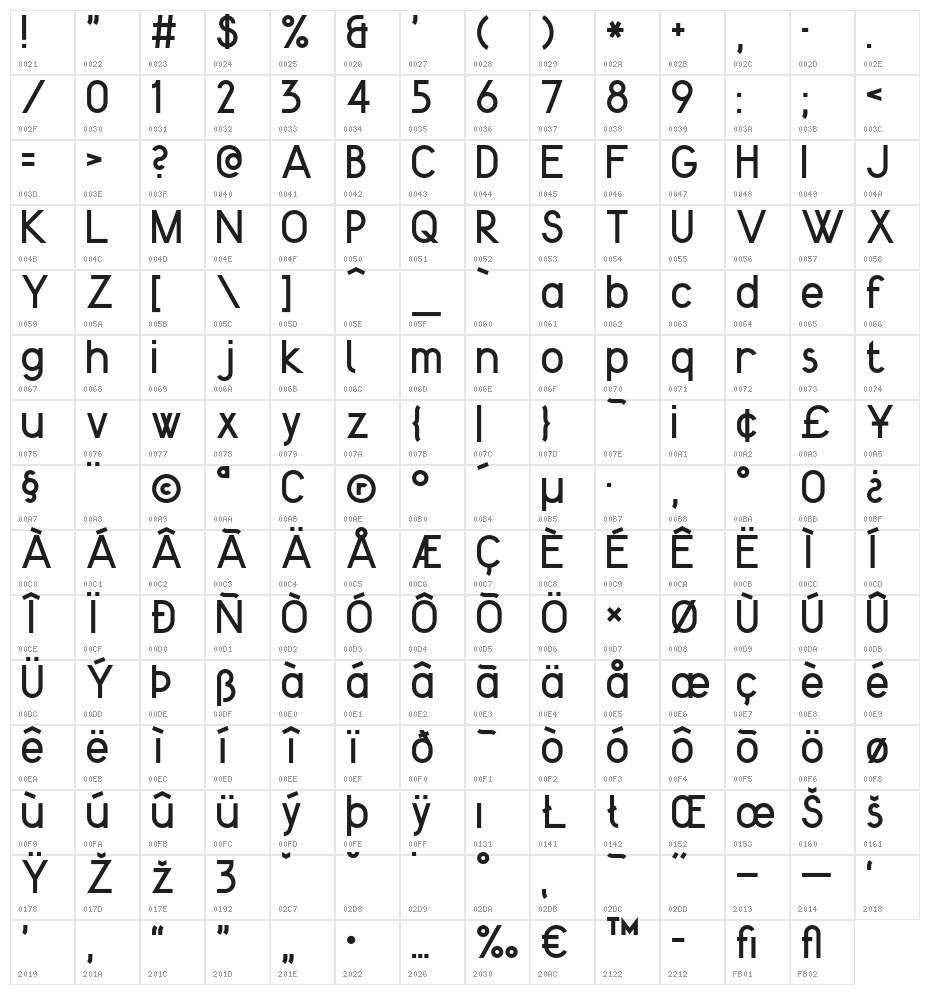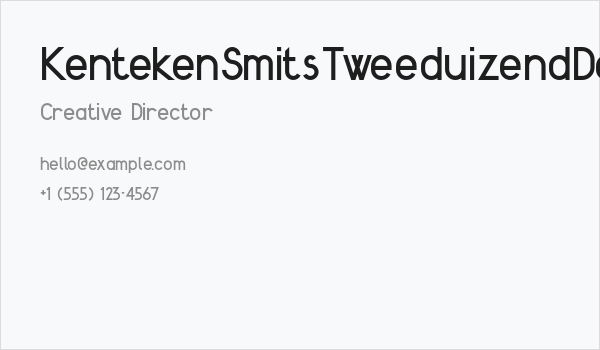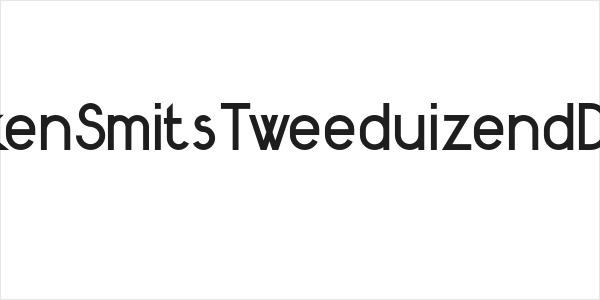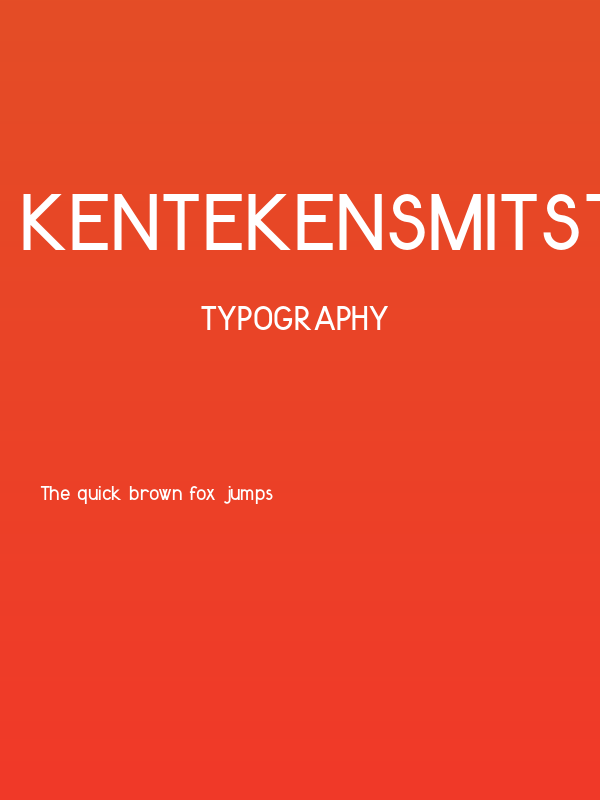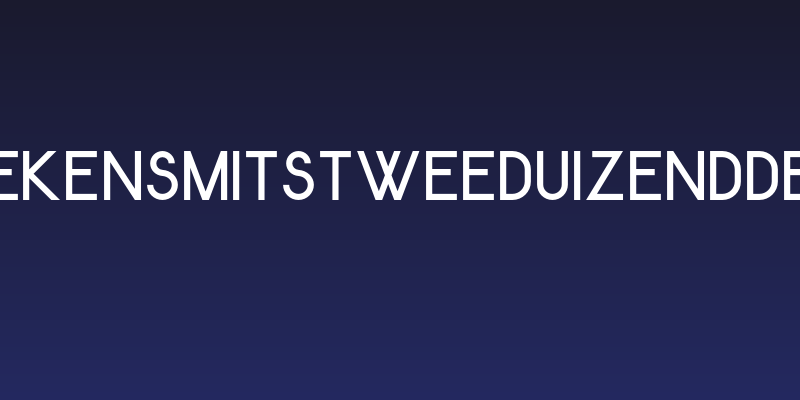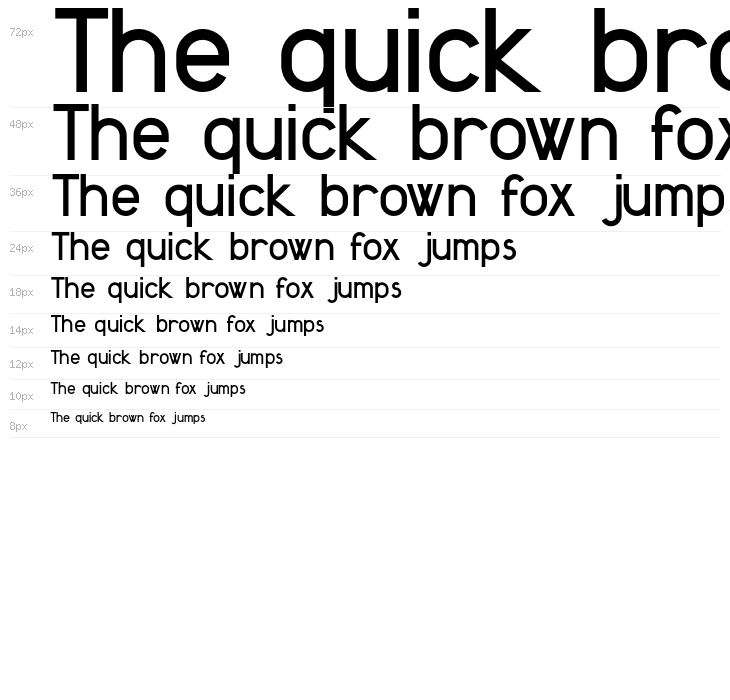
KentekenSmitsTweeduizendDertien Font
KentekenSmitsTweeduizendDertien Description
This font features a clean and modern sans-serif design with uniform stroke widths, providing a sleek and contemporary appearance. The characters are well-balanced, with a geometric structure that enhances readability. The uppercase letters are bold and assertive, while the lowercase letters maintain a consistent style that complements the overall look. The numerals are clear and distinct, making them suitable for various applications. Special characters are included, offering versatility for different design needs. The font's simplicity and clarity make it ideal for both digital and print media.
| Proposed Projects | Ideal for branding, web design, advertising, and editorial projects. |